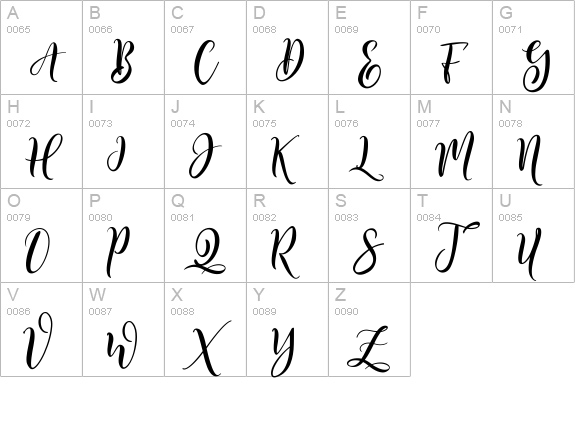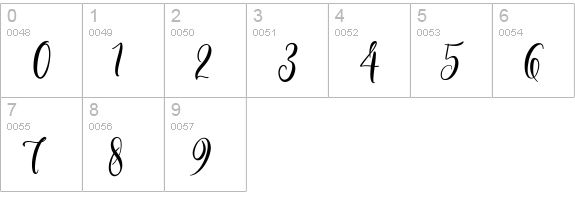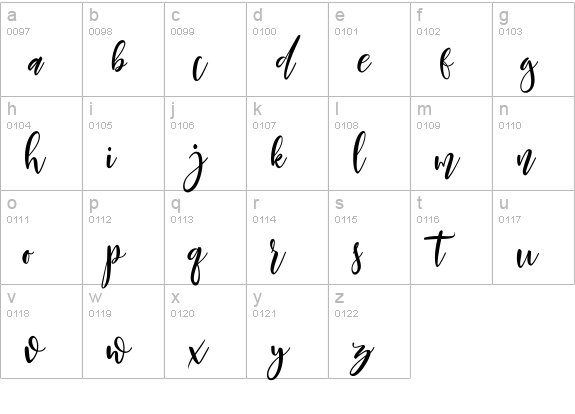
Sheline is a free for personal use font in the Script category, designed by Sofian ID. It has been downloaded 1,038 times and is available for Windows, Mac and Linux.
Sheline font exudes elegance and sophistication with its sleek, modern design. This versatile typeface is perfect for a wide range of projects, from branding to editorial design. Its clean lines and subtle curves give it a timeless appeal that is sure to elevate any creative work.